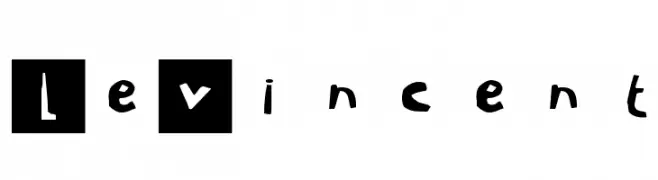
( Fonts by Billy Argel Fonts ® )
A bold, decorative font with textured and geometric styles.
( Fonts by Toto )
A bold, geometric font with sharp angles and a modern style.
A bold, dynamic font with angular strokes and a modern, energetic style.
( ADT )
A playful, quirky handwritten font with irregular shapes and varying strokes.
A pixelated, grid-like font with a retro digital aesthetic.
A modern, geometric sans-serif font with excellent legibility.
( Fonts by Bringtype Studio )
A decorative font with intricate lattice patterns and bold outlines.
( - www.mrflurry.net )
A playful, cloud-like font with a bubbly and whimsical design.